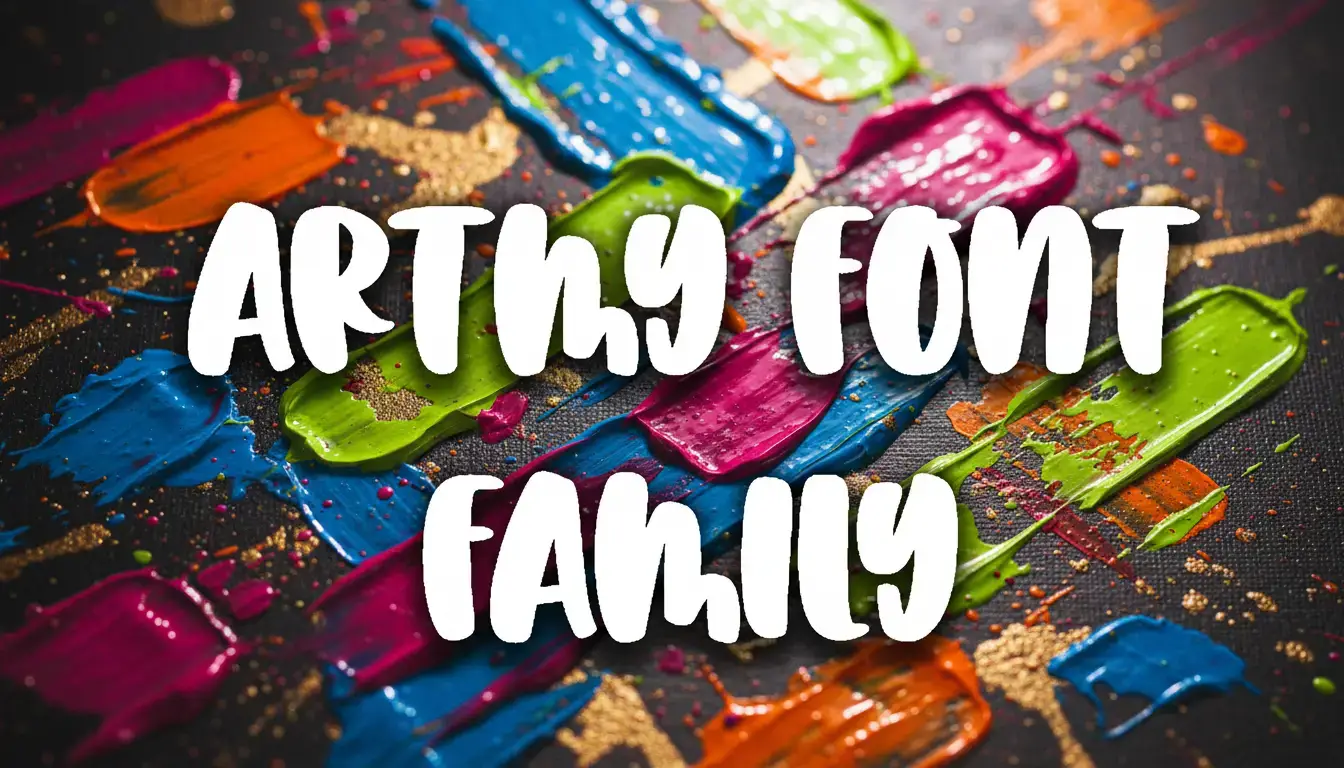
Artmy Font Family
Artmy Font Family is a fancy font created by Panggah Laksono @ Abo Daniel Studio. It's a decorative display font with plenty of personality, made to grab attention. It's a free download, and you can try it with your own text in the preview above first.
Artmy Font Family covers the full alphabet in upper and lowercase, plus all ten numbers, so you can set names, dates and prices without switching fonts. Everyday marks like &, !, ? and @ are there too. Thanks to its accented letters, it also works for Spanish, French, German, Portuguese and Italian, not just English.
Artmy Font Family is a natural fit for posters, logos and eye-catching headlines. Use it for one standout word or headline and let simpler fonts handle the rest.
Yes. Artmy Font Family includes the accented letters needed for Spanish, French, German, Portuguese and Italian, so it works for more than just English.